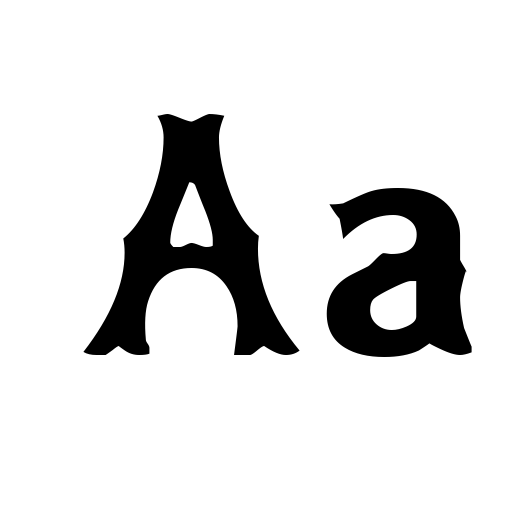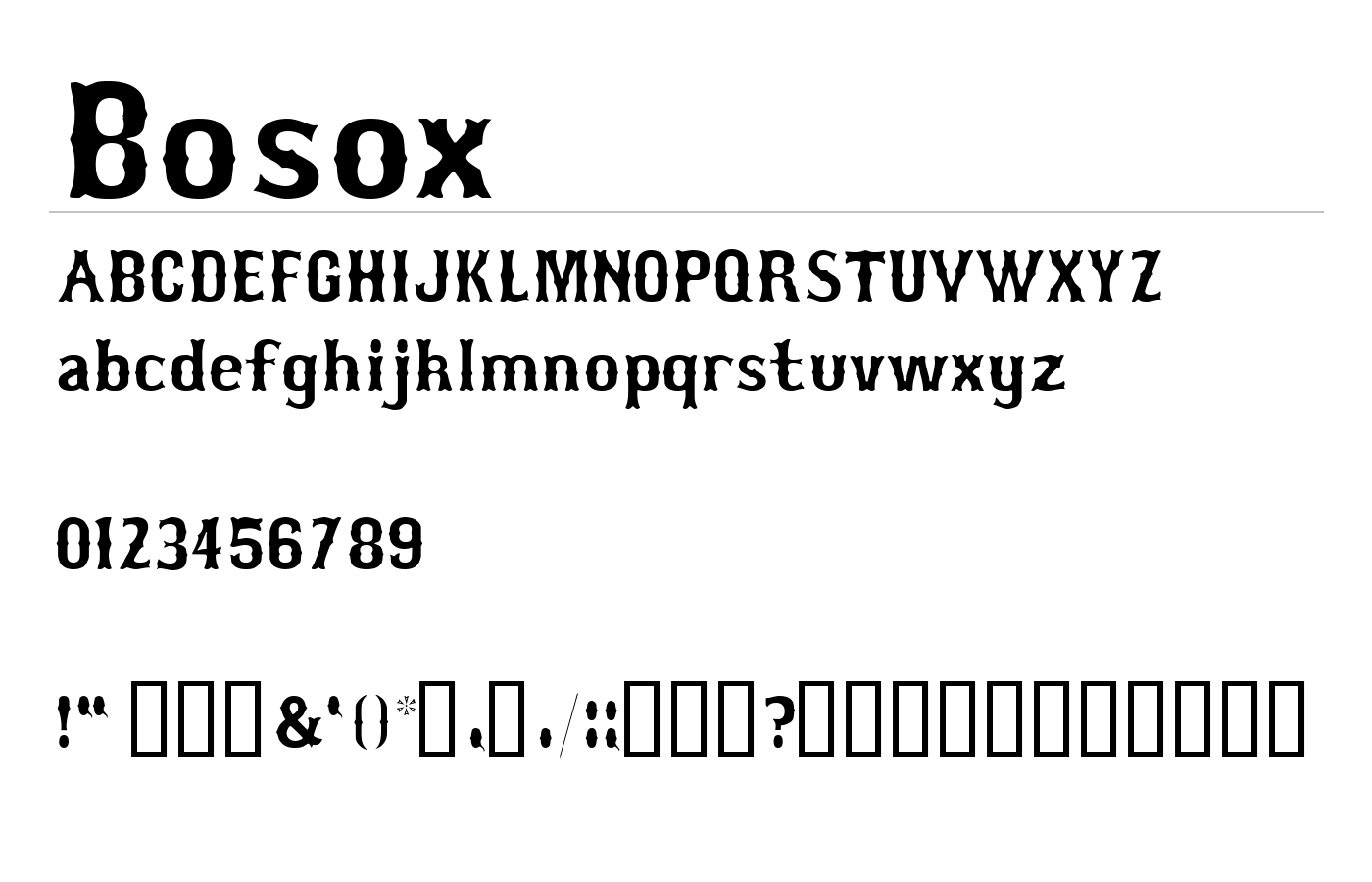
Bosox is a bold slab serif font with a vintage, Western-style charm, characterized by its thick, blocky serifs and high contrast between thick and thin strokes. Its sturdy, slightly condensed letterforms and distinctive ornamental details give it a strong personality, making it ideal for eye-catching headlines, logos, and branding that seeks a rugged, nostalgic, or adventurous feel. This font works beautifully in designs related to sports, outdoor themes, or classic Americana.
Bosox Font
About Bosox Font